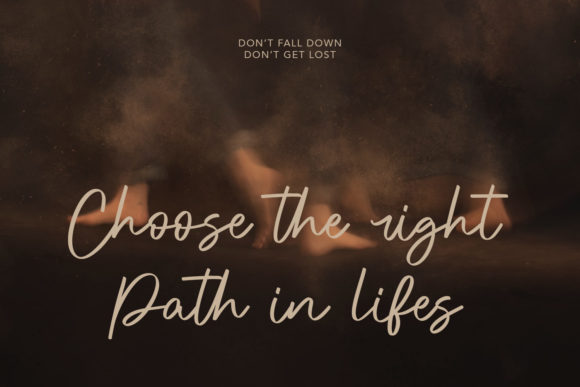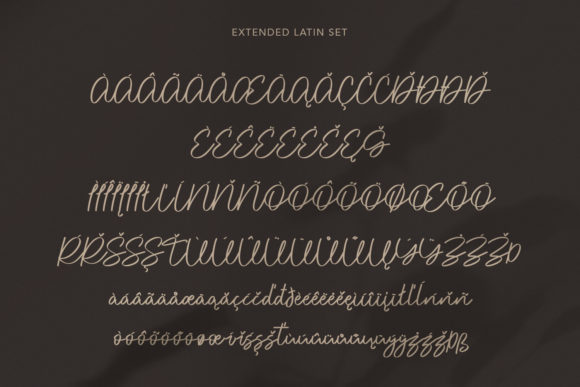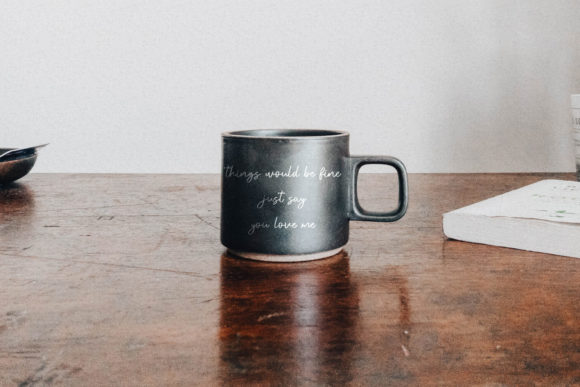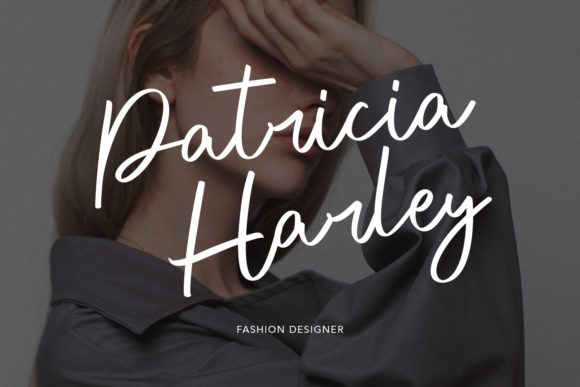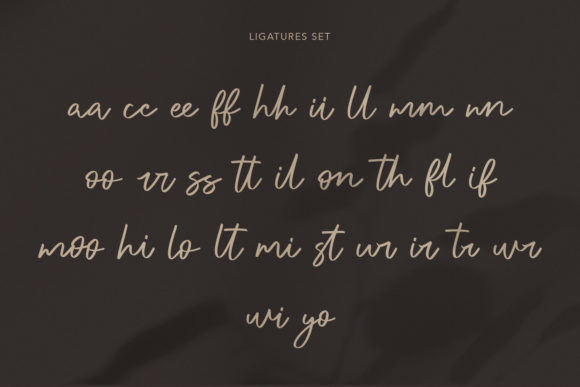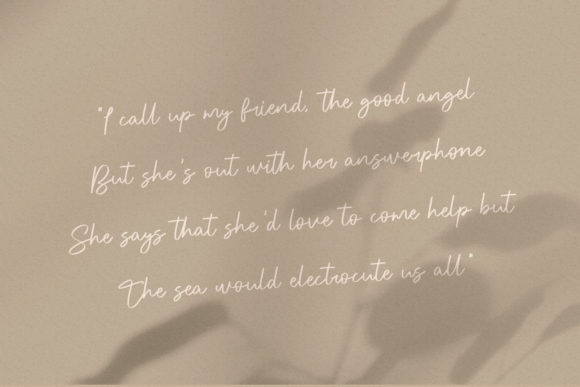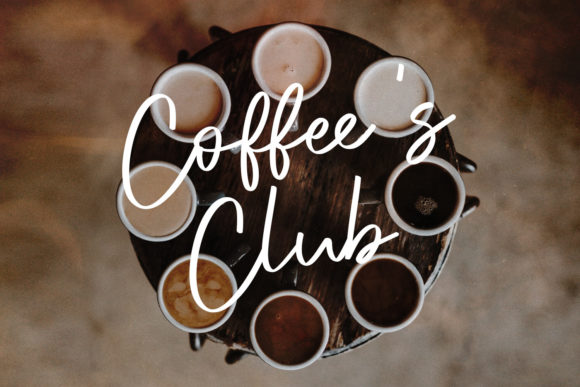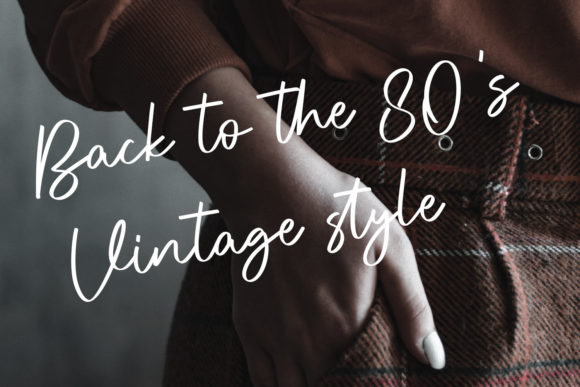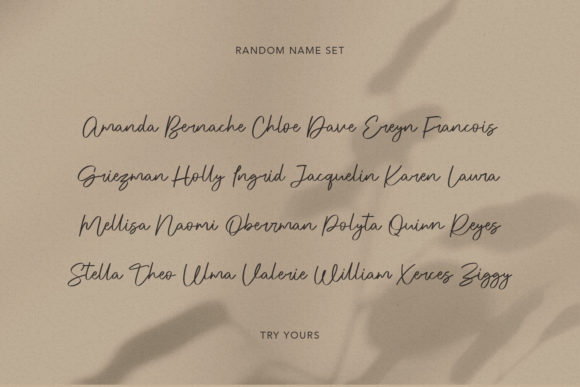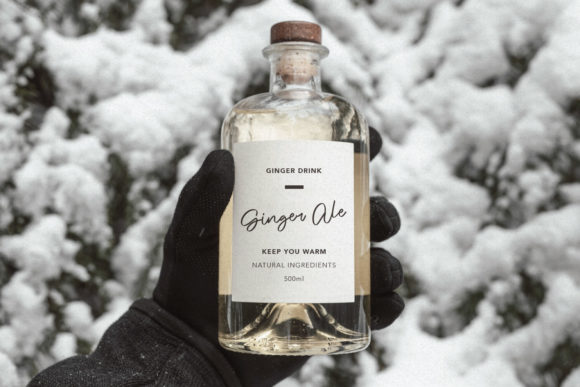
Rawks Dream Font
About Rawks Dream Font
“Rawks Dream” is a stunning thin lettered script font that exudes elegance and sophistication. With its delicate and beautiful letterforms, this font is perfect for creating designs that require a touch of grace and refinement.
As a PUA encoded font, “Rawks Dream” provides easy access to all the glyphs and swashes, allowing you to add stylish and unique elements to your designs effortlessly. This versatility opens up a world of creative possibilities, enabling you to customize your typography and create spectacular and eye-catching designs.
The fashionable style of “Rawks Dream” makes it a perfect choice for various design projects. Whether you’re designing wedding invitations, logos, branding materials, packaging, or any other creative work, this font will elevate your designs to new heights.
The thin letterforms of “Rawks Dream” give it an air of delicacy and sophistication, making it particularly well-suited for elegant and refined design concepts. It can evoke a sense of romance, luxury, or modernity, depending on how it is used.
Embrace the fashionable style of “Rawks Dream” and let it inspire your creative process. Use it to bring a touch of elegance to your designs, and watch as it adds a sense of sophistication and beauty.
In summary, “Rawks Dream” is a thin lettered, delicate, and beautiful script font with PUA encoding, providing easy access to its glyphs and swashes. Its fashionable style and elegance make it an excellent choice for creating spectacular designs in various contexts.